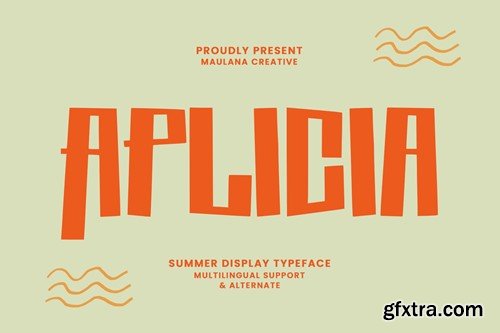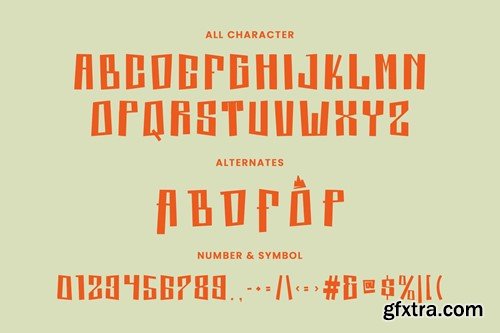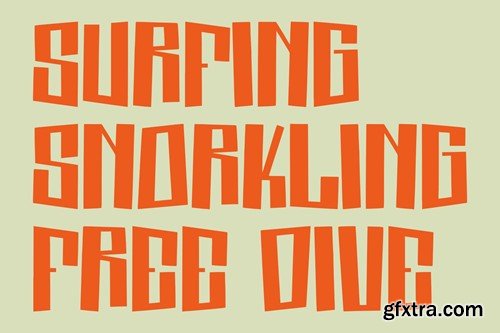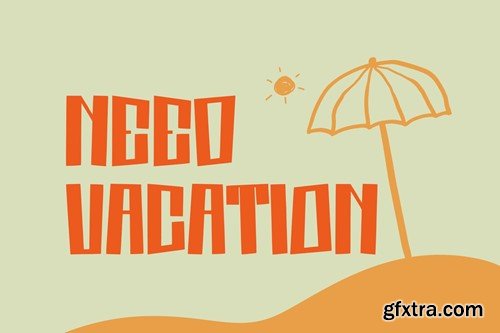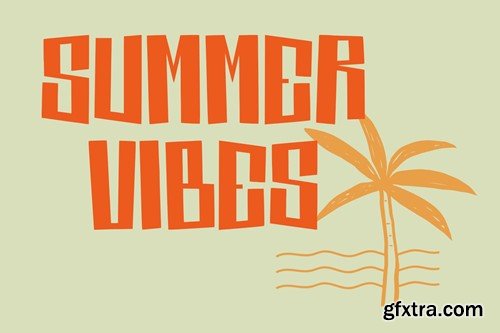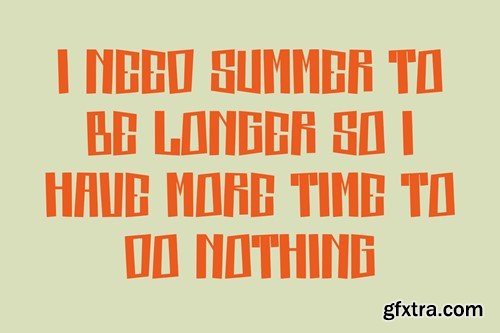
Aplicia Summer Display Typeface
Aplicia Summer Display Typeface Aplicia summer display typeface. Heavy stroke, fun character with a bit of ligatures. To give you an extra creative work. Aplicia summer display typeface support multilingual more than 100+ language. This font is good for logo design, Social media, Movie Titles, Books Titles, a short text even a long text letter and good for your secondary text font with script or serif. Make a stunning work with Aplicia summer display typeface. What you get: Cheers, Maulana Creative